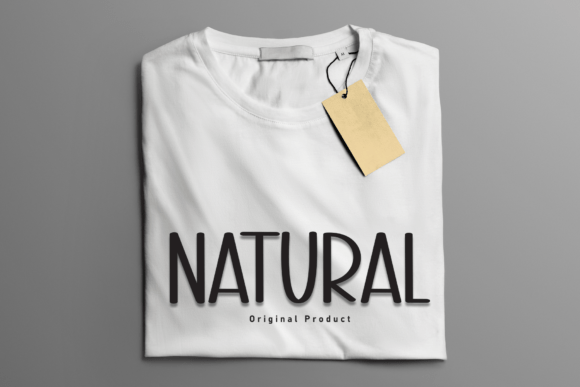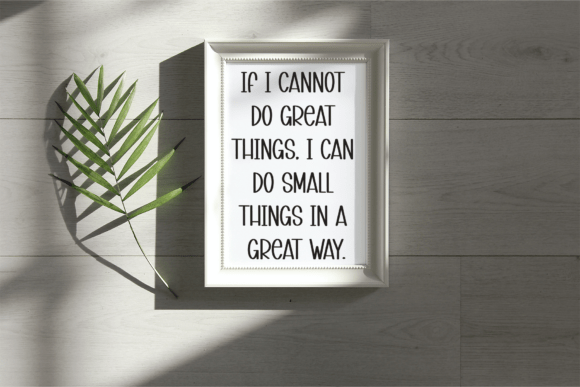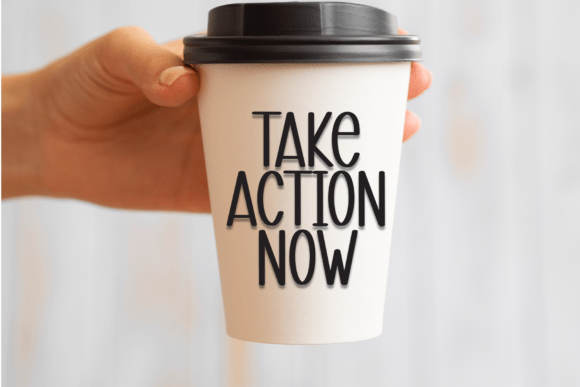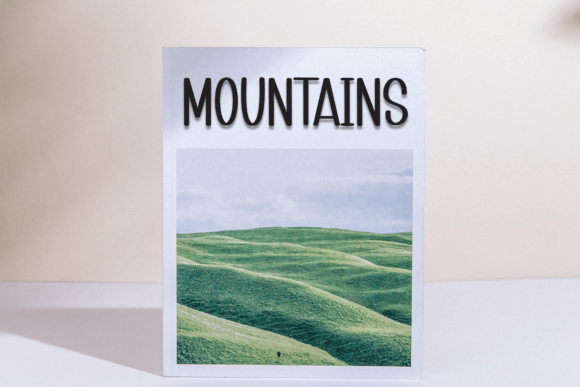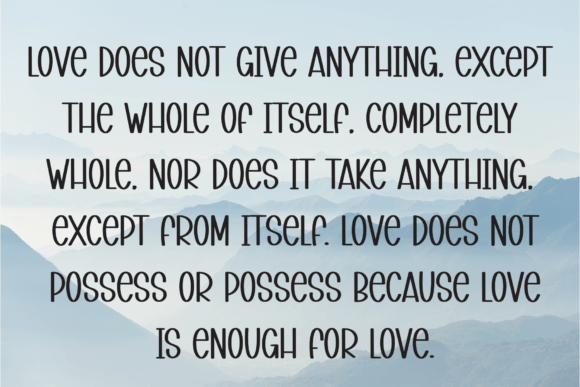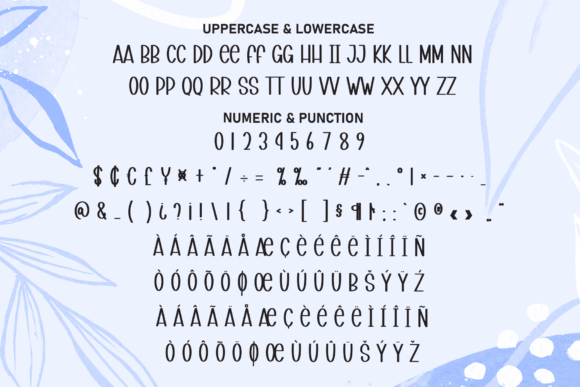
Introducing Background Font: The Ultimate Playful Display Font
Are you tired of using the same old fonts for your designs? Look no further than Background Font, a playful and versatile display font that’s sure to add a cheerful and modern touch to any project. With its tall, rounded letter style, Background Font is perfect for designers and crafters looking to bring a sense of charm and approachability to their text.
What Makes Background Font So Special?
Background Font is a unique and eye-catching font that’s designed to make your designs stand out. Its clean yet fun appearance makes it perfect for a wide range of applications, from branding and posters to packaging and social media graphics. Whether you’re looking to create a bold and playful heading or add a touch of whimsy to your text, Background Font is the perfect choice.
Key Features of Background Font
- Tall, Rounded Letter Style: Background Font features a tall, rounded letter style that’s both modern and playful.
- Clean yet Fun Appearance: The font’s clean lines and fun appearance make it perfect for a wide range of design applications.
- Versatile: Background Font is versatile and can be used for headings, creative projects, and more.
- Easy to Read: Despite its playful appearance, Background Font is easy to read, making it perfect for body text and captions.
Background Font is perfect for designers and crafters looking to add a touch of personality to their designs. Whether you’re creating a brand identity, designing a poster, or crafting a social media graphic, Background Font is the perfect choice. Its playful and modern appearance makes it perfect for:
- Branding: Use Background Font to create a bold and playful brand identity that stands out.
- Posters: Add a touch of whimsy to your posters with Background Font’s fun and modern appearance.
- Packaging: Use Background Font to create eye-catching packaging that stands out on store shelves.
- Social Media Graphics: Add a touch of personality to your social media graphics with Background Font’s playful and modern appearance.
Tips for Using Background Font
Here are a few tips for getting the most out of Background Font:
- Use it for Headings: Background Font is perfect for headings and titles, where its playful and modern appearance can really shine.
- Experiment with Colors: Background Font looks great in a wide range of colors, so don’t be afraid to experiment and find the perfect hue for your design.
- Pair it with Other Fonts: Background Font pairs well with a wide range of other fonts, so feel free to get creative and try out different combinations.
In conclusion, Background Font is a playful and versatile display font that’s perfect for designers and crafters looking to add a touch of personality to their designs. With its tall, rounded letter style and clean yet fun appearance, Background Font is perfect for a wide range of applications, from branding and posters to packaging and social media graphics. So why wait? Download Background Font today and start adding a touch of charm and approachability to your text!